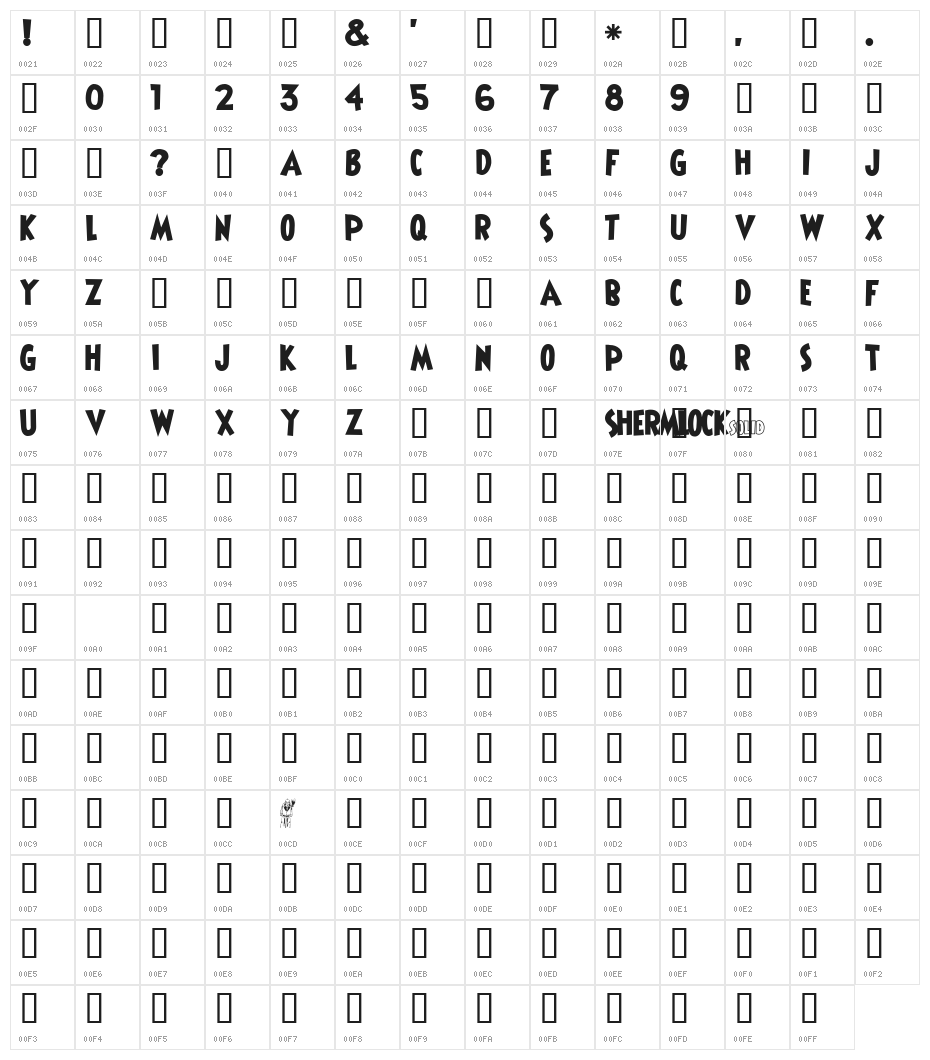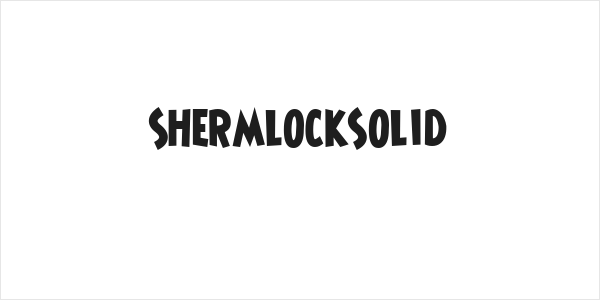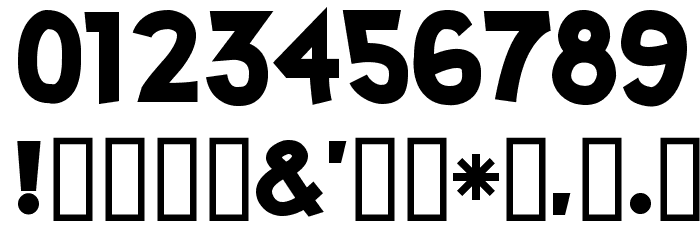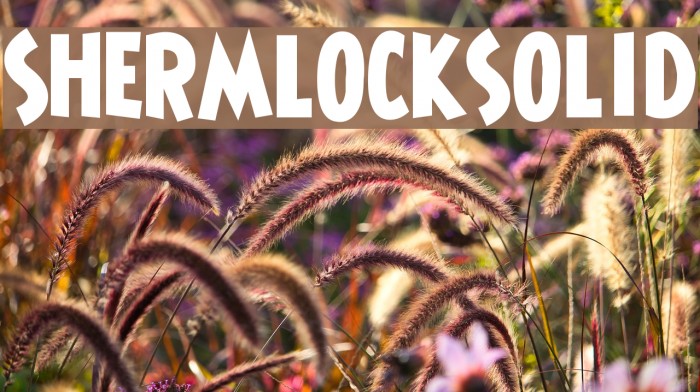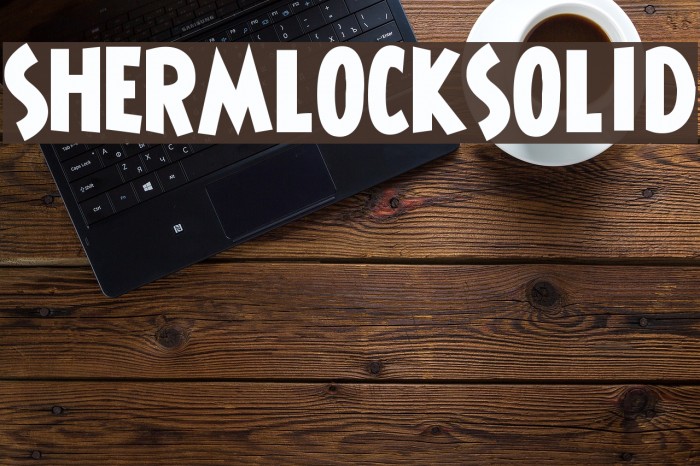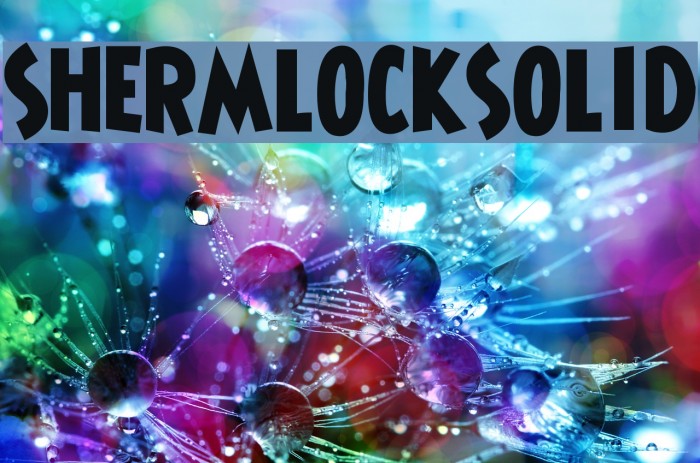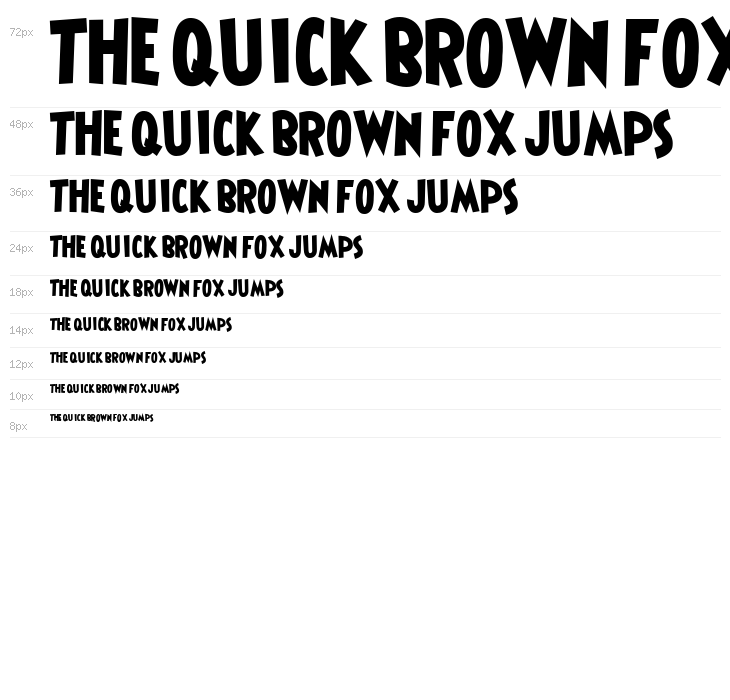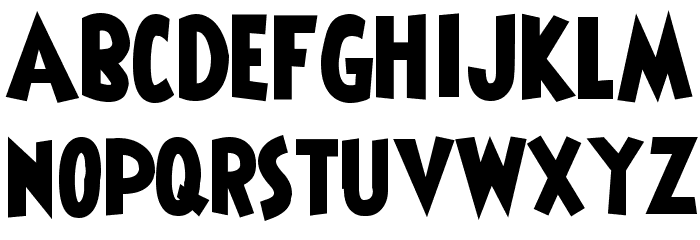
ShermlockSolid Font
ShermlockSolid Description
This font features bold, playful characters with a distinct, quirky style. The letters are slightly irregular, giving them a hand-drawn appearance that adds a sense of whimsy and charm. The uppercase and lowercase letters maintain a consistent weight, contributing to a cohesive look. The numbers are equally bold and match the overall style, making them stand out. Special characters are included, maintaining the same playful aesthetic. This font is ideal for projects that require a fun and engaging visual impact.
| Overall Style | Playful, Quirky |
| Proposed Projects | Ideal for children's books, playful branding, posters, and creative invitations. |